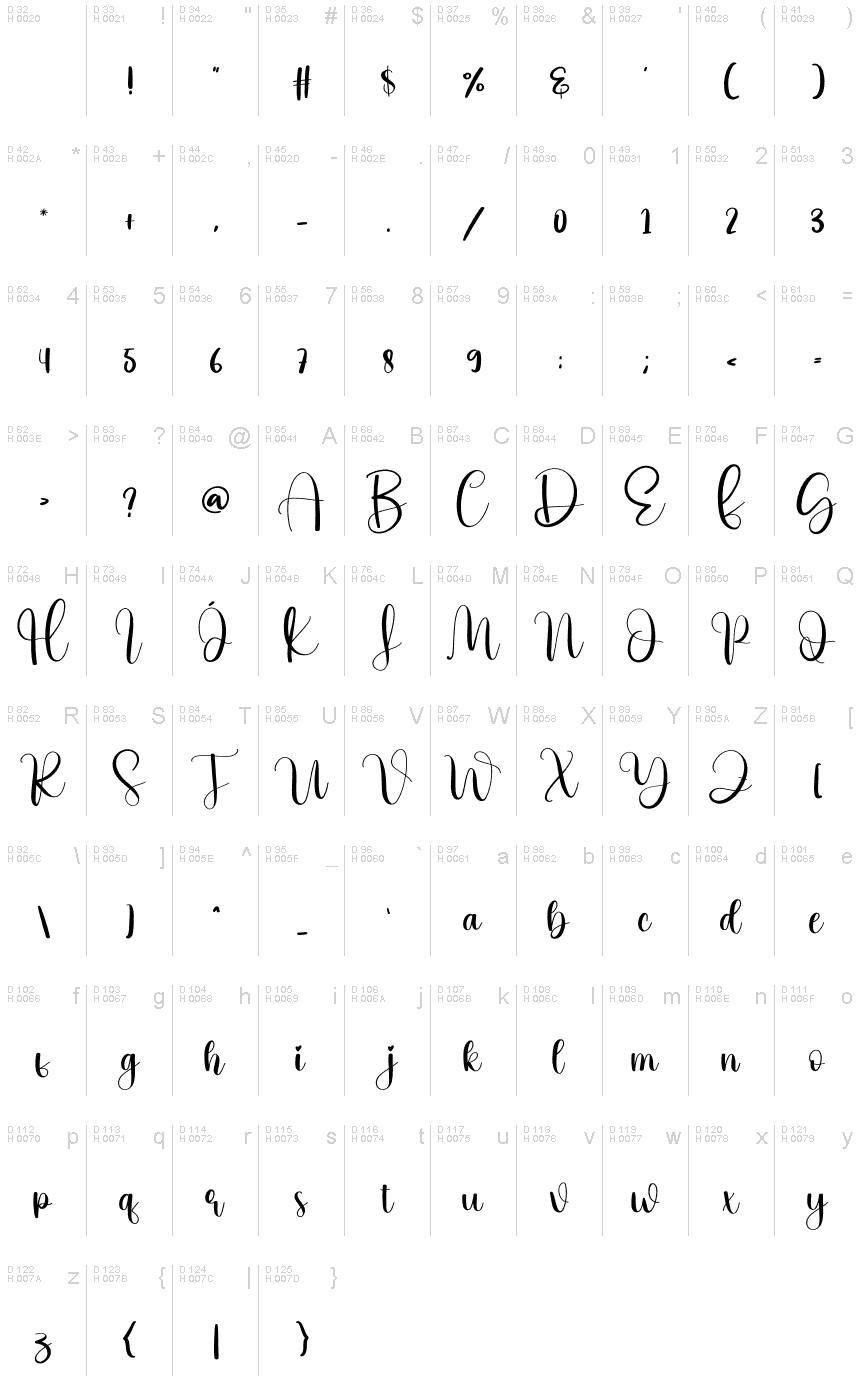
Duck
Duck, a semi-light calligraphy font crafted by Scratchones, exudes an elegant and fluid aesthetic that captures the eye instantly. Its sweeping curves and fine lines are reminiscent of traditional calligraphic techniques, yet it offers a modern twist that makes it versatile for contemporary design work. The Duck font's semi-light weight gives it a delicate and refined appearance, ideal for invitations, branding, and advertising where a touch of sophistication is desired.
With its beautifully balanced proportions and stylish flair, Duck stands out in creative projects that require a personalized feel. Its calligraphic style lends an artistic sensibility to the text while maintaining excellent readability – a testament to Scratchones' thoughtful design approach. Whether used for digital media or print, Duck is sure to elevate the visual narrative of any project it graces.